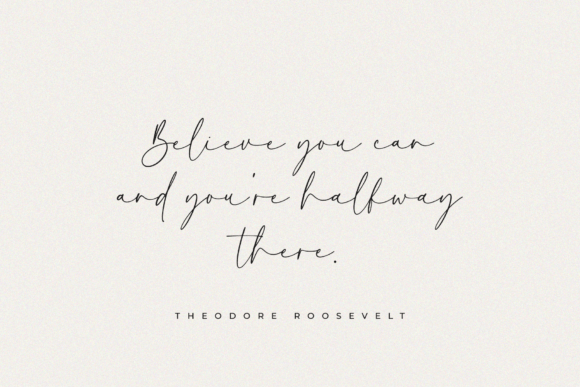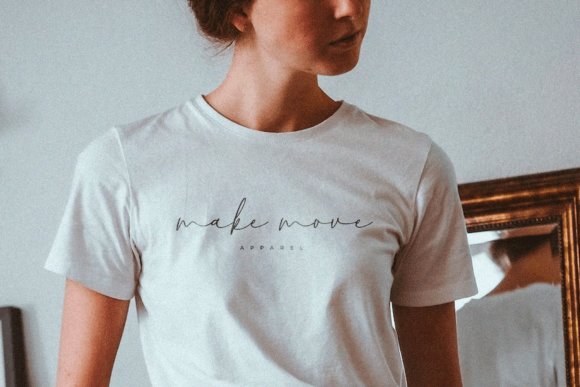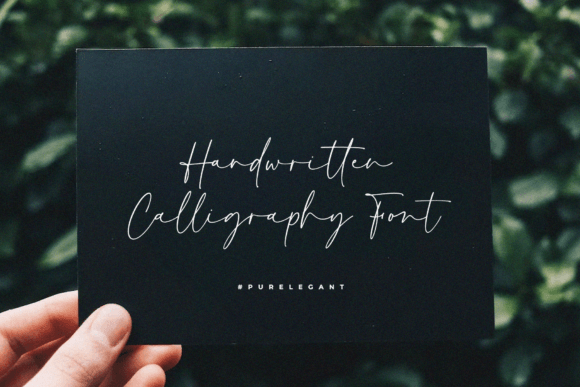
Introduction to Senatheca Font
Have you ever found yourself sitting in front of a blank canvas, struggling to bring your creative vision to life? For many designers, this is a familiar feeling. But what if you had the perfect tool to help you craft a truly unique and captivating design? Enter Senatheca Font, a stunning calligraphy font that’s sure to elevate any high-quality project.
Whether you’re working on a wedding invitation, a branding project, or a poster for a creative event, Senatheca Font is an invaluable resource. Its smooth curves and elegant lines make it perfect for adding a touch of sophistication and whimsy to your design. And with its transparent background, you can easily layer it over any image or texture to create a truly one-of-a-kind look.
Key Features of Senatheca Font
- High-quality design resource with a unique, creative touch perfect for artistic projects.
- Transparent background option allows for effortless compositing and customization.
- Available in multiple font sizes and resolutions, including 300 DPI, to suit various design requirements.
- Senatheca Font is ideal for creative projects, such as graphic design, digital art, and typography-focused designs.
- Supports a wide range of languages, making it a versatile design resource for multilingual projects.
Honest Review: Senatheca Font
I recently had the chance to work with the Senatheca Font, and I must say it’s been a fantastic addition to my design resource collection. ✨ The high quality of this font is truly impressive, and I’ve been able to use it for a variety of creative projects.
One of the standout features of the Senatheca Font is its versatility. It’s available for free download, making it a fantastic resource for designers of all levels. The transparent background option also makes it incredibly easy to use in a variety of different design scenarios.
Here are some of the things that work well with the Senatheca Font:
- High-quality design: The Senatheca Font is truly a high-quality font that looks great on any project.
- Transparent background: This feature makes it incredibly easy to use in a variety of different design scenarios.
That being said, there are a few limitations to the Senatheca Font:
- Limited character set: The Senatheca Font has a limited character set, which may not be suitable for all design projects.
- No bold or italic options: The font doesn’t have any bold or italic options, which may limit its use in certain design scenarios.
Overall, I’m really impressed with the Senatheca Font. It’s a fantastic addition to any design resource collection, and I’ve been able to use it for a variety of creative projects. The only limitations are minor, and I would highly recommend it to anyone looking for a high-quality font for their next design project.
Tips for Getting the Most Out of Senatheca Font
For a high-quality design, use the Senatheca Font with a transparent background to create a seamless design. Experiment with different font sizes and styles to add visual interest to your project.
Common Use Cases for Senatheca Font
The Senatheca Font is a versatile design resource that can be used in a variety of creative projects, including logos, business cards, and social media graphics. Its clean and modern design makes it perfect for branding and marketing materials.
Can I use the Senatheca Font with a transparent background?
Yes, the Senatheca Font has a transparent background, making it perfect for use on images, videos, or other design elements that require a seamless integration. Simply place the font on top of your design element and adjust the opacity to achieve the desired effect.